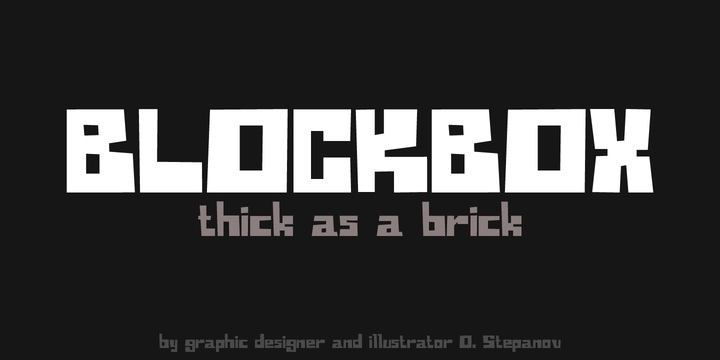
Blockbox Font
This geometric typeface is perfect for construction companies, architectural firms, industrial branding, urban development, building materials, engineering logos, structural signage, construction equipment, and solid foundation design projects.
What makes this font exciting is its structural solidity combined with architectural precision, offering designers a robust typeface that captures the essence of construction excellence while delivering industrial strength and unshakeable foundation sophistication.
The Blockbox font family includes light, regular, medium, bold, heavy, and structural variations, providing complete construction design solutions for creating solid architectural visual identities.
Whether you're developing construction industry brands or crafting architectural design experiences, Blockbox Font Free Download brings exceptional structural atmosphere and industrial authenticity to every application. This robust typeface combines construction typography traditions with contemporary architectural design, creating letterforms that inspire confidence and structural integrity. The font's solid construction and building-ready details make it perfect for brands seeking immediate industrial recognition.
Blockbox Font features carefully engineered structural styling with authentic construction character that conveys genuine architectural expertise. Each character has been designed with geometric precision and industrial proportions that enhance the solid aesthetic. The font's structural qualities make it particularly effective for construction companies and engineering applications.
Professional designers choose Blockbox Font for projects requiring authentic construction credibility and industrial atmosphere. Its architectural heritage makes it exceptionally well-suited for building contractors, engineering firms, and construction lifestyle brands. The font's versatile structural variations allow designers to control the industrial intensity, from subtle architectural elegance to full construction power.
The complete Blockbox Font package offers extensive construction ornaments and architectural decorative elements that enhance the structural aesthetic. Advanced building features allow designers to create complex construction effects with multiple foundation-inspired options. This comprehensive industrial toolkit ensures designers have everything needed to create authentic construction communications that celebrate the enduring strength of architectural excellence and structural engineering mastery.